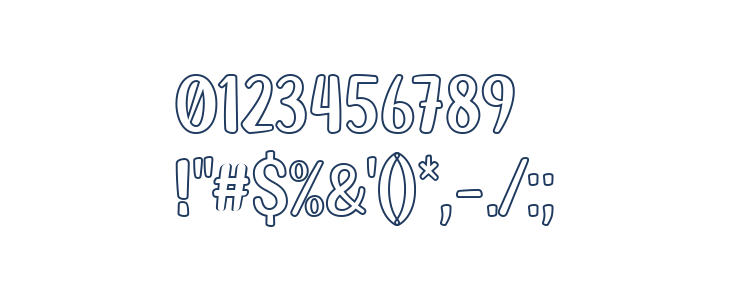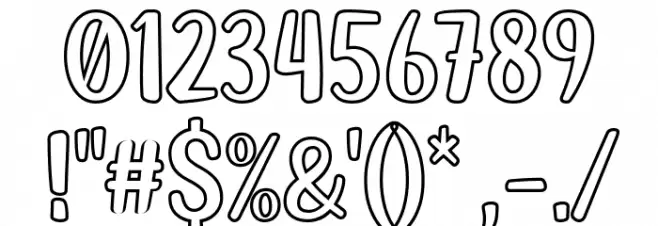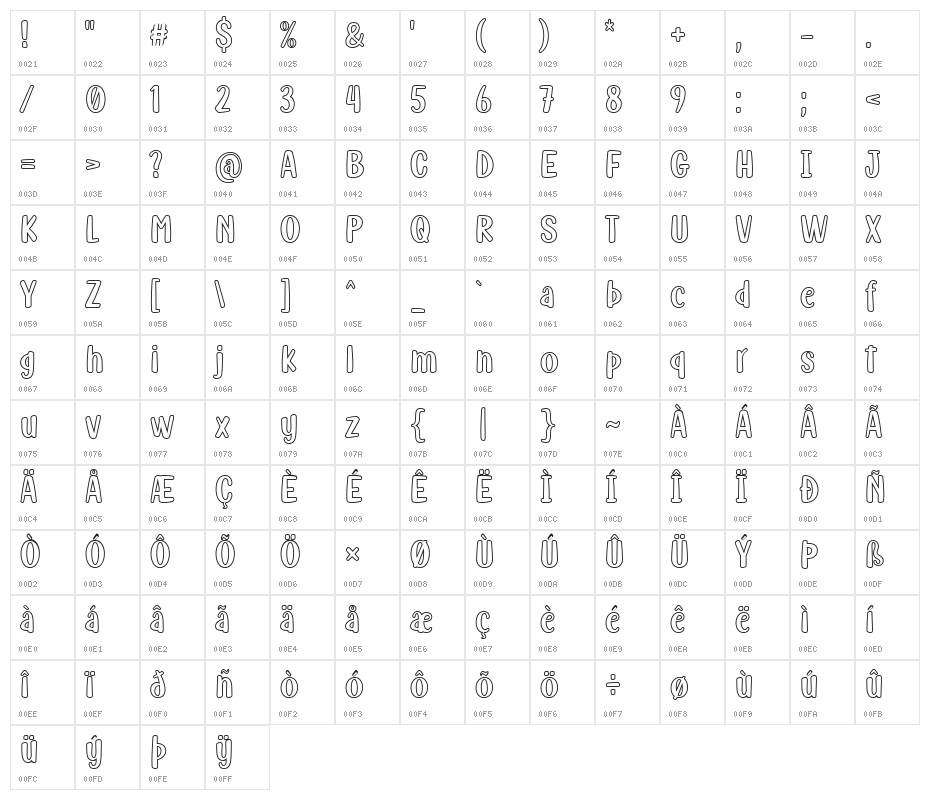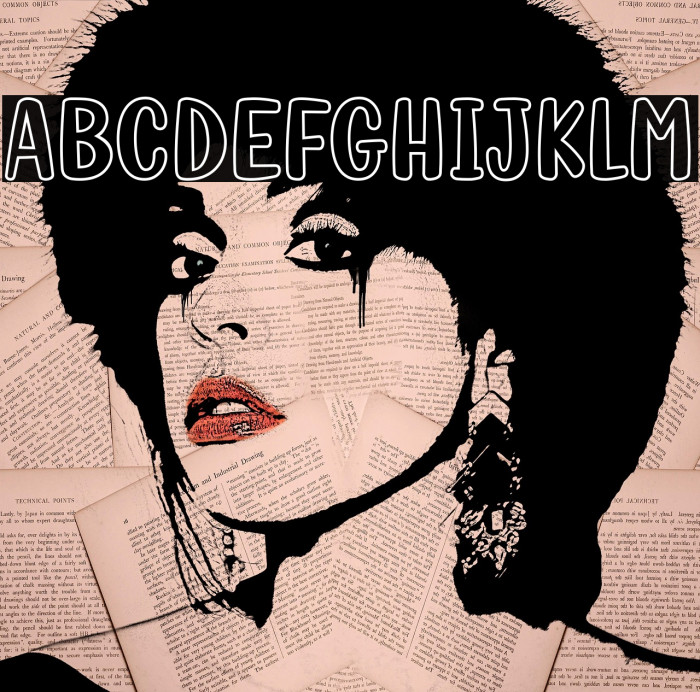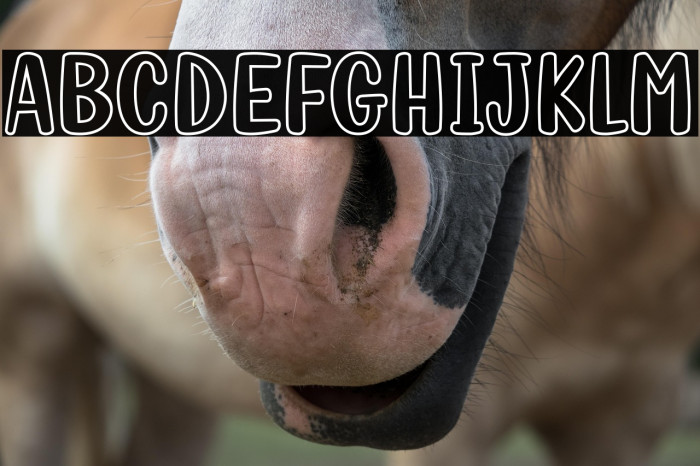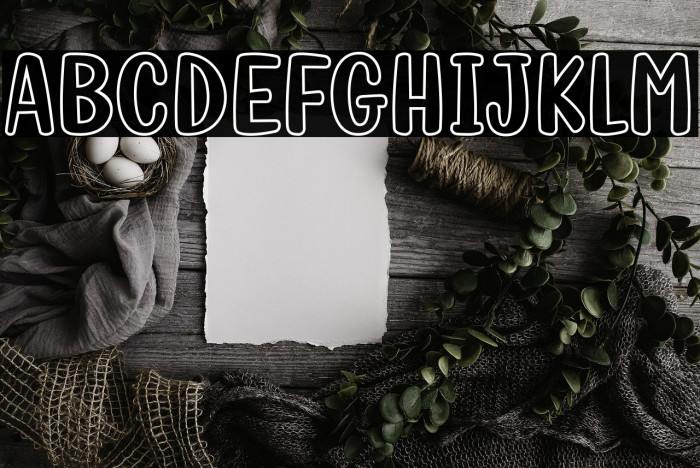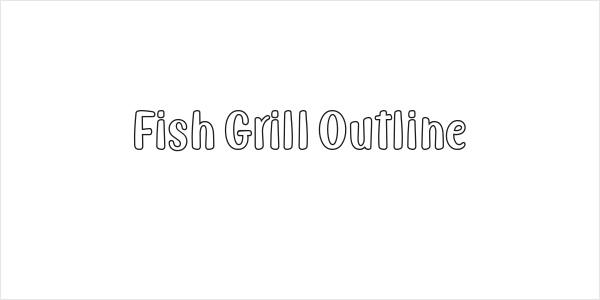
Fish Grill Outline Font
Fish Grill Outline Description
This playful and bold font features an outline style that gives it a unique and eye-catching appearance. The characters are rounded and slightly irregular, adding a whimsical and friendly touch. The uppercase and lowercase letters maintain a consistent style, with a slight variation in height and width that enhances its casual feel. The numbers and special characters are equally bold and maintain the same outlined aesthetic, making them stand out. This font is perfect for projects that require a fun and approachable look, such as children's books, party invitations, or playful branding.
| Proposed Projects | Ideal for children's books, party invitations, playful branding, and casual posters. |